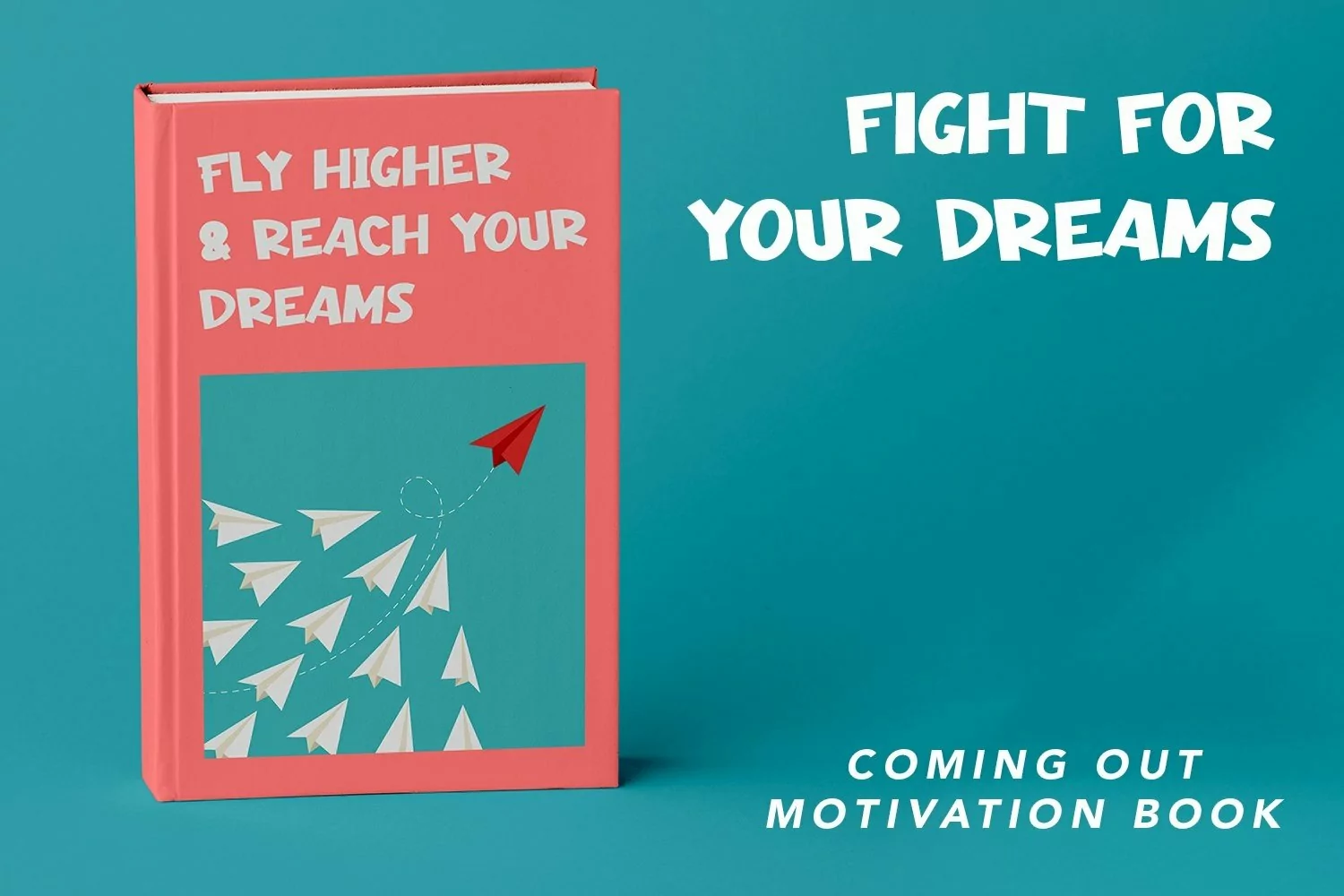
Web Font Hyperbole - Comic Display Font that contain lowercase, uppercase, symbol, and also support multi language. There’s a lot ligatures in this font. This Font also comes with ligatures, alternates and many more. this font suitable for fashion, branding, catalog and other design what you want.